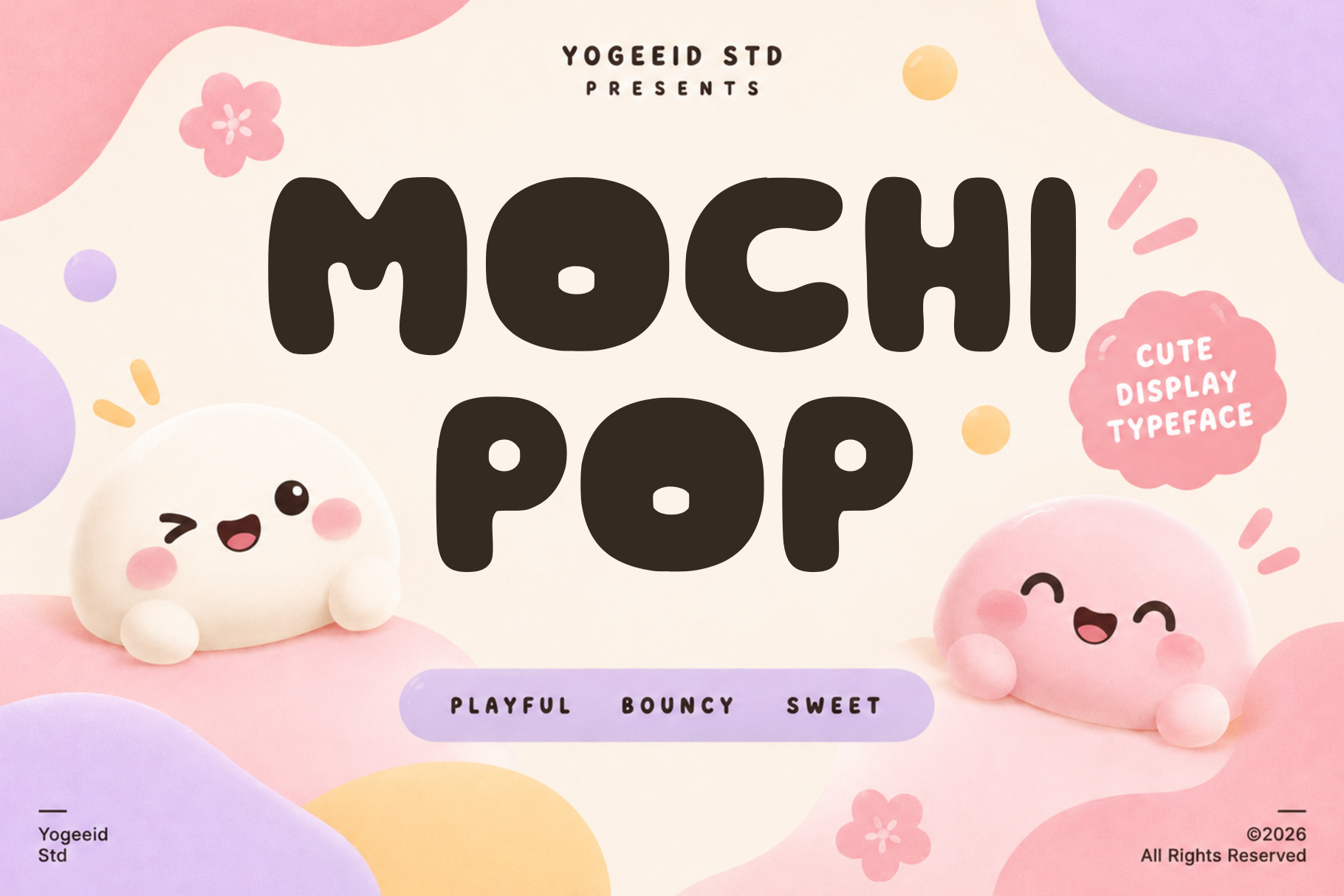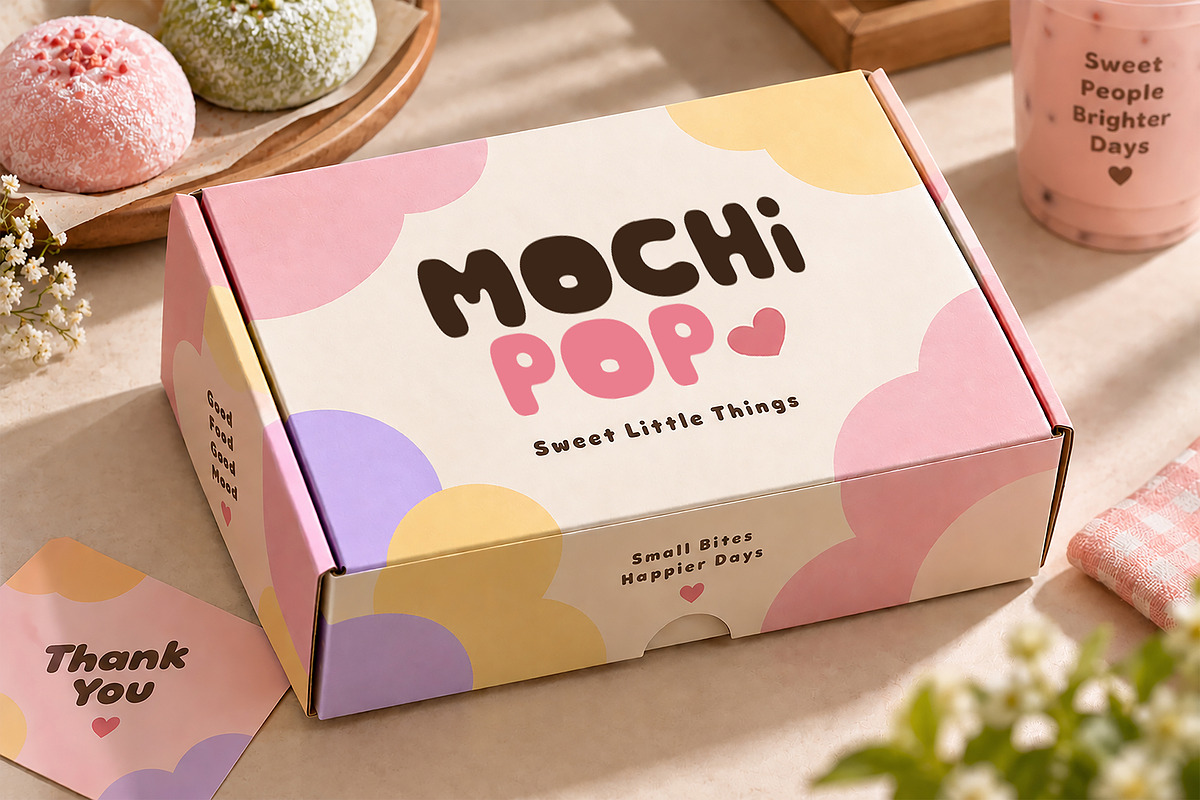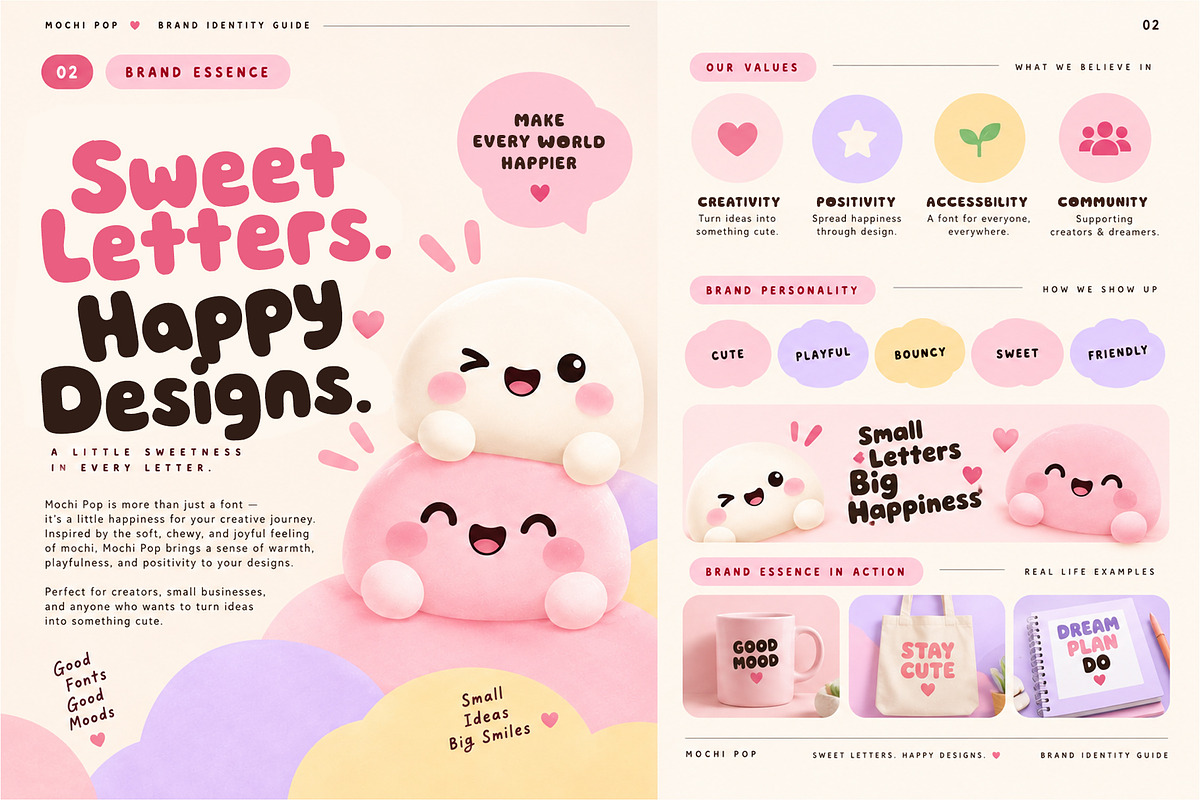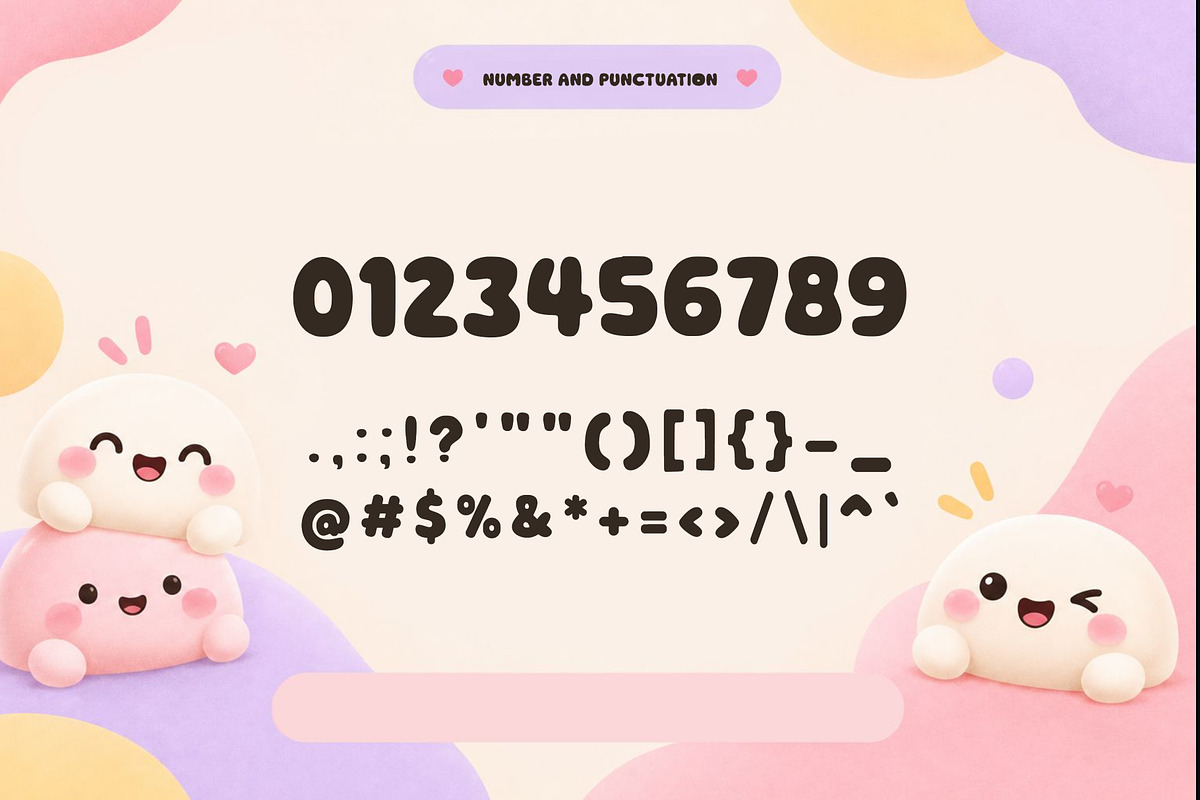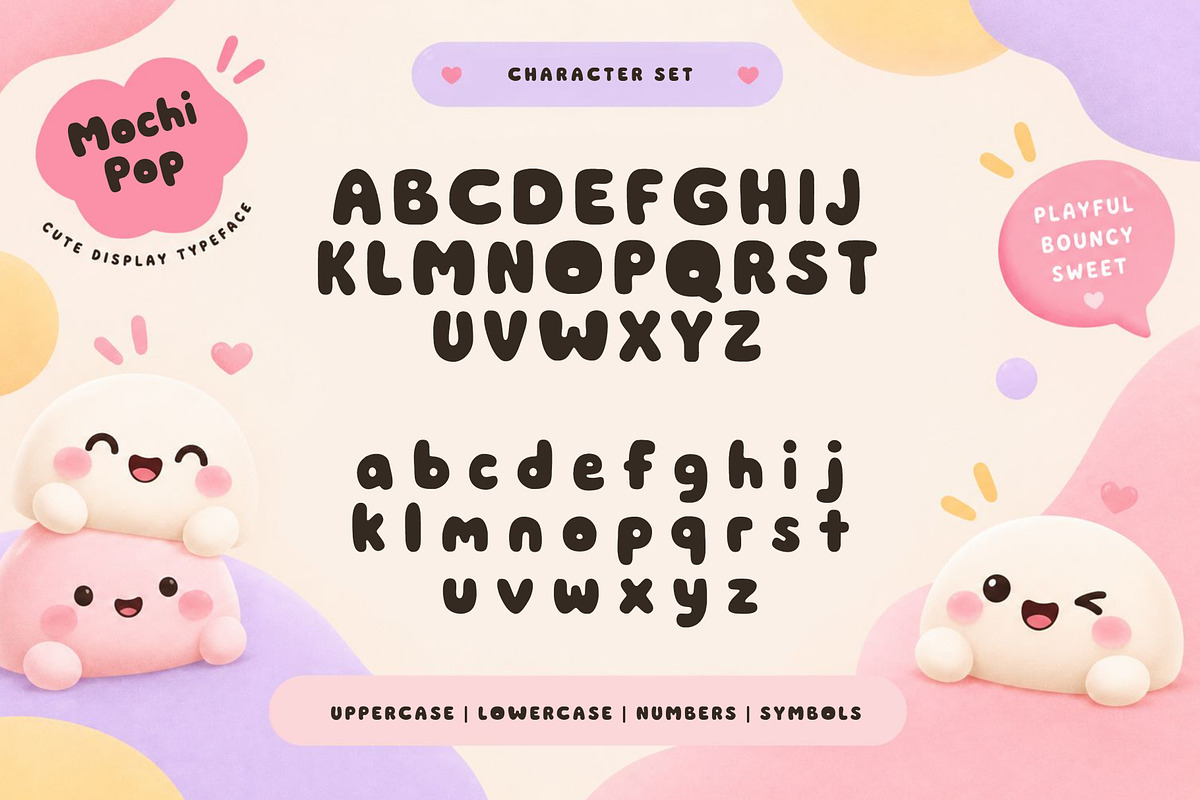
Mochi Pop – Cute Bubble Font
Mochi Pop – Cute Bubble Display Font
Meet Mochi Pop, a sweet and playful display font inspired by the soft, chewy shape of mochi and the joy of little things.
With its chunky rounded forms, bubbly curves, and friendly personality, Mochi Pop is designed to make your words feel softer, happier, and more playful.
From bold headlines to cute packaging, this typeface brings a cheerful touch to every design.
🍡 Perfect for
Branding & Logo Design
Packaging & Product Labels
Food & Beverage Branding
Children's & Kids Designs
Stickers & Decals
T-Shirts & Apparel
Posters & Signage
Greeting Cards & Invitations
Stationery
Cricut & Craft Projects
Digital Products
And much more!
💕 The Personality
Cute. Playful. Bouncy. Sweet. Friendly.
Mochi Pop was created for designers who want to turn simple words into something fun, memorable, and full of personality.
Sweet Letters. Happy Designs.